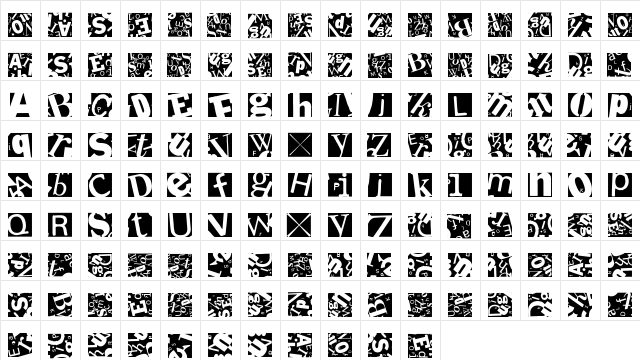
LetterSoupMainz Regular
Design Context for LetterSoupMainz Typeface
LetterSoupMainz is a composed and adaptable typeface that performs quietly and consistently across a wide range of design contexts.